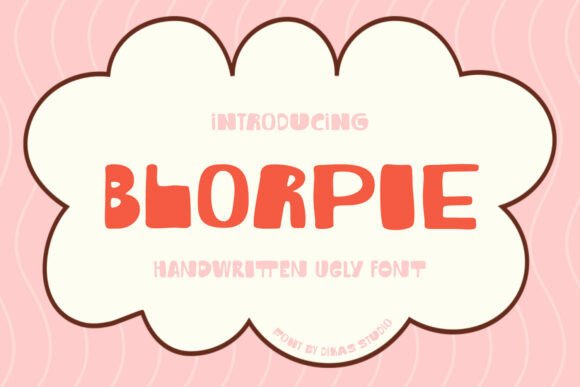
Blorpie: A Playful Display Font
Blorpie is a hand-drawn sans-serif font that brings a sense of whimsy and charm to any design. Its rough texture and lively contrast make it ideal for creating visuals that capture attention and convey a fun, kid-friendly vibe. As a display font, Blorpie excels in short text scenarios where boldness and personality are key.
Blorpie for Social Media Graphics and Instagram Posts
Blorpie is a standout choice for social media graphics, especially on platforms like Instagram where visual appeal is crucial. Whether you're designing a post for a children's book launch or a promotional graphic for a kids' product, Blorpie adds a playful touch that resonates with your audience. Its unique character makes it perfect for eye-catching headlines, captions, and callouts that stand out in a crowded feed.
Blorpie for YouTube Thumbnails and Reels Covers
YouTube thumbnails and reels covers need to grab attention instantly, and Blorpie delivers just that. Its hand-drawn style ensures that your content stands out among competitors. Whether you're promoting a tutorial, a vlog, or a product review, Blorpie can help you create a thumbnail that entices clicks and boosts engagement.
1. Use Blorpie for the main title on your thumbnail to draw viewers in.
2. Combine it with bold colors and simple backgrounds for maximum impact.
3. Ensure text is large enough to be readable on mobile screens and small previews.
Blorpie for Email Headers and Website Banners
Email marketing and website banners require fonts that are both visually appealing and easy to read. Blorpie works well for email headers and website banners when used strategically. Its playful nature can enhance the tone of your brand while maintaining a level of professionalism.
When using Blorpie in email headers, keep the text concise and place it prominently. For website banners, consider using Blorpie for headlines and subheadings to create a dynamic visual hierarchy. Pair it with a more neutral font for body text to ensure clarity and readability.
Blorpie for Digital Ads and Promo Graphics
Digital ads and promo graphics benefit from a font that commands attention without overwhelming the viewer. Blorpie fits this role perfectly, offering a balance between creativity and legibility. It’s ideal for ad copy, promotional banners, and limited-time offers that need to communicate urgency and excitement.
When designing digital ads, use Blorpie for headlines and key phrases. Avoid overusing it in long paragraphs, as it may reduce readability. Instead, let it shine in short, impactful statements that align with your campaign goals.
Blorpie for Branding and Logo Design
Blorpie is an excellent choice for branding and logo design, particularly for businesses targeting a younger or family-oriented audience. Its hand-drawn aesthetic gives a personal and approachable feel, making it ideal for brands that want to convey warmth and creativity.
Consider using Blorpie for logo marks or taglines that need a distinctive look. Pair it with a more structured font for a balanced design. Always check commercial licensing before using Blorpie in client projects or branded materials to ensure compliance.
Blorpie for Content Series and Webinar Banners
Content series and webinar banners often require a font that reflects the theme and tone of the event. Blorpie is well-suited for these applications, offering a fresh and energetic look that appeals to a broad audience. Whether you’re promoting a series of blog posts or a live webinar, Blorpie can help you create a compelling visual identity.
For content series, use Blorpie to label each installment with a catchy title. In webinar banners, apply it to the event name and key details to create a clear and engaging message. Keep the design simple to avoid clutter and ensure the message is easily digestible.
Blorpie for Online Shop Promotions and Branded Templates
Online shop promotions and branded templates benefit from a font that enhances the overall aesthetic without distracting from the content. Blorpie is a great fit for these purposes, adding a touch of personality to product titles, sale announcements, and promotional banners.
When using Blorpie in online shop promotions, focus on its ability to catch attention and convey excitement. For branded templates, incorporate it into headers and call-to-action buttons to reinforce your brand’s visual identity. Always test the font on different devices to ensure it looks good across all platforms.
Blorpie for Editorial Design and Packaging
Blorpie’s unique style makes it a versatile option for editorial design and packaging. It can be used to create eye-catching headlines, section dividers, and decorative elements that enhance the overall layout. In packaging design, Blorpie adds a personal and creative touch that sets your product apart from the competition.